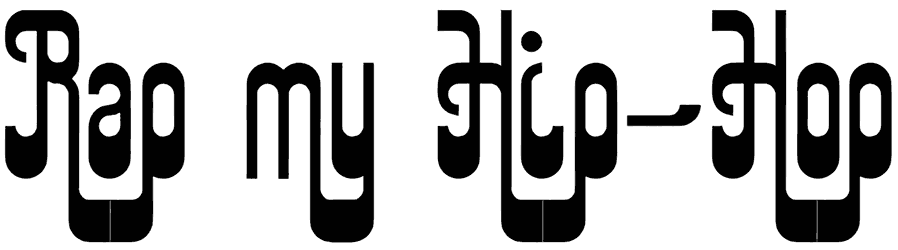
Rap my Hip-Hop Font
The prominent point of Rap my Hip-Hop is that the edge of its characters is stretched and elongated, thus it can easily impress the audience with the help of its unique and jaunty form. This groovy font carries a feeling…
The prominent point of Rap my Hip-Hop is that the edge of its characters is stretched and elongated, thus it can easily impress the audience with the help of its unique and jaunty form. This groovy font carries a feeling of evocative, appealing, dynamic, or tenderness, thus, it would look really perfect on video game posters, graffiti, digital banners, headlines, or social media posts.
317 characters incl. Accents and Cyrillic.